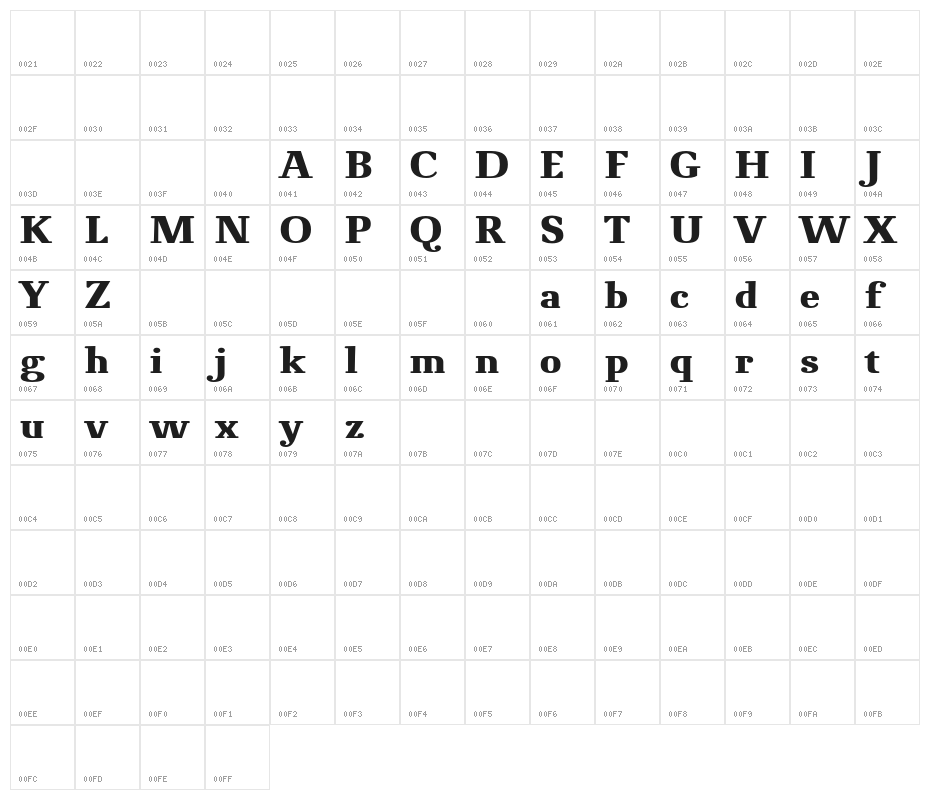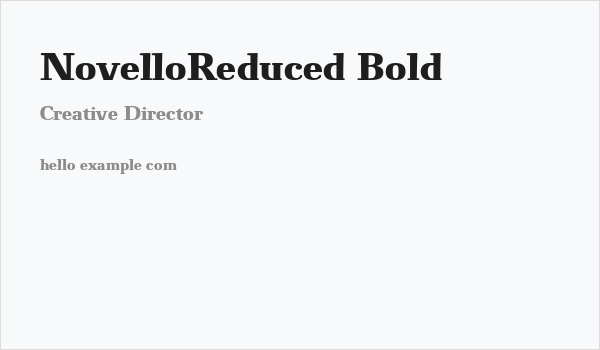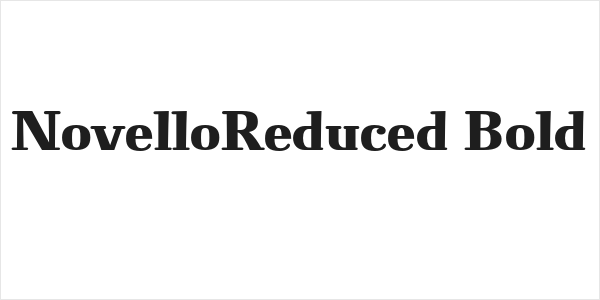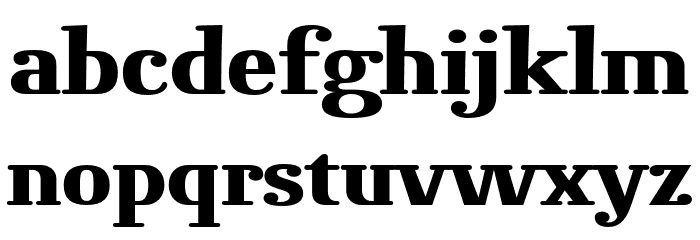
NovelloReduced-Bold Font
NovelloReduced-Bold Description
This font exhibits a bold and authoritative presence, characterized by its strong, thick strokes and classic serif elements. The serifs are pronounced, adding a touch of elegance and tradition to the overall appearance. The uppercase letters are robust and commanding, while the lowercase letters maintain a consistent weight, ensuring readability and balance. The numerals are clear and well-defined, complementing the alphabetic characters. Special characters are designed with the same attention to detail, providing a cohesive look across all glyphs. The font's boldness makes it suitable for impactful headlines and titles, while its classic serif style lends itself well to more formal and traditional applications.
| Proposed Projects | Ideal for book covers, editorial headlines, branding materials, and formal invitations. |